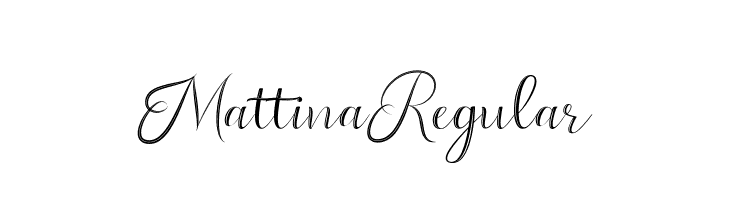
( Fonts by Matthew Austin Petty - www.disturbed.com )
A bold, playful font with exaggerated curves and a whimsical, hand-drawn style.
( Font by Jayvee D. Enaguas - grandchaos9000.deviantart.com )
A modern, italic sans-serif font with a sleek and dynamic style.
( Font by Jayvee D. Enaguas - grandchaos9000.deviantart.com )
A modern sans-serif font with a bold, geometric design.
An elegant script font with flowing, cursive letterforms and ornate details.
( Cropstudio - Crop Studio - creativemarket.com/Cropstudio )
An elegant and flowing script font with interconnected letters and a classic style.
A playful handwritten font with rounded, irregular letterforms.
A playful, casual handwritten font with flowing, irregular letterforms.
( Barri Lubis - www.behance.net/barrilubisa8bb )
A bold, cursive font with interconnected letters and a dynamic flow.
An elegant script font with flowing, cursive letterforms and refined style.